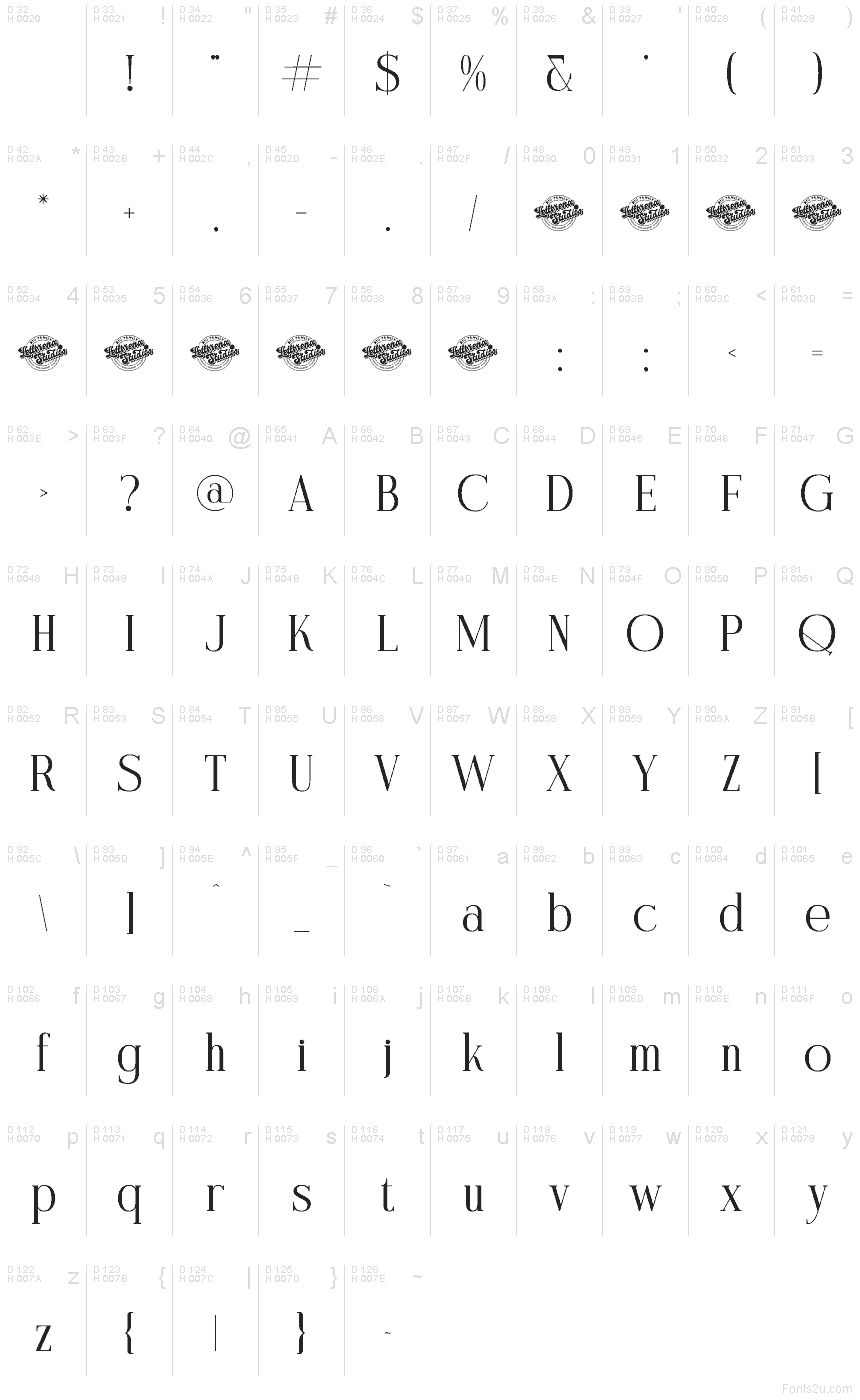
Modasite font by Letterena Studios is a free serif font with thin, unmatched elegance. It celebrates minimalism while also having its signs appear very sharp, almost like a sharply focused blade. Its sophisticated appearance and simplicity make it an exquisite choice to convey quality and decorum in both personal and professional context.
Use Modasite in magazines, books, posters, or gift cards. Use it online on banners or websites, or offline on advertisements that can take the visual identity of your brand into new heights. The high readability also makes it a suitable typeface for product packaging (cosmetics for example), awareness campaigns, menus etc.